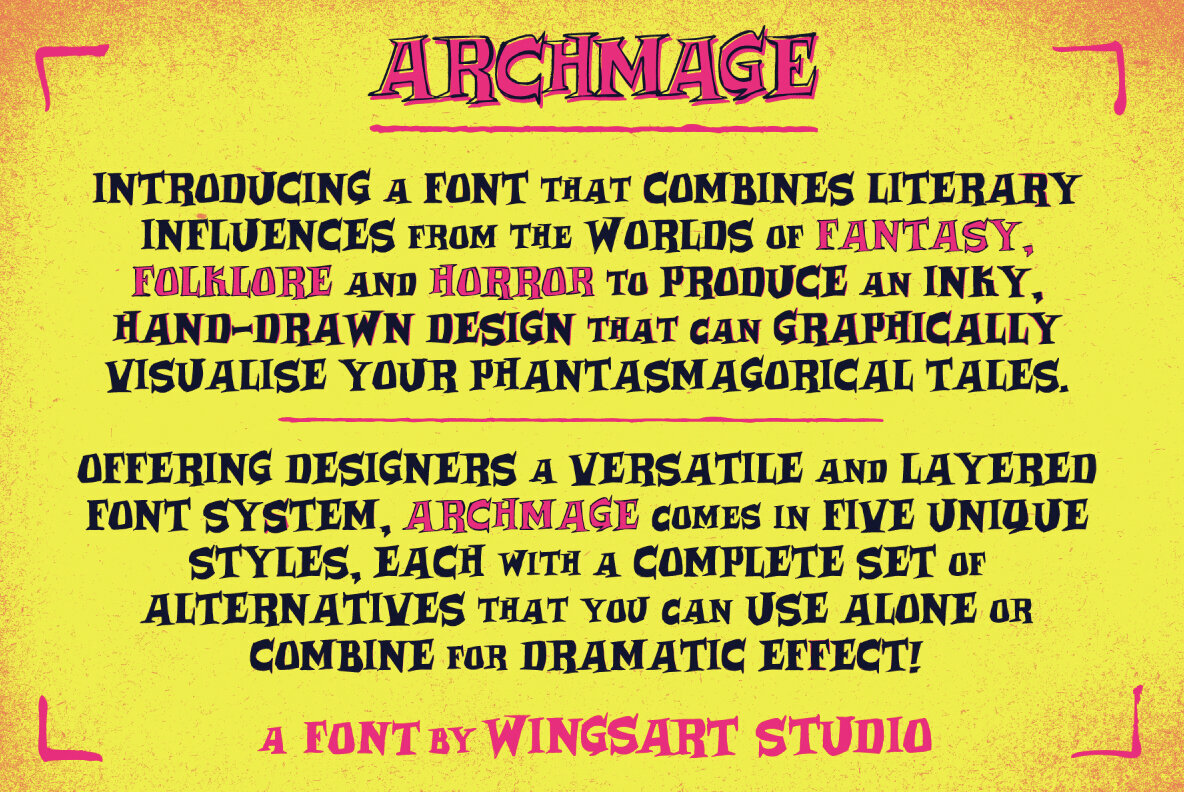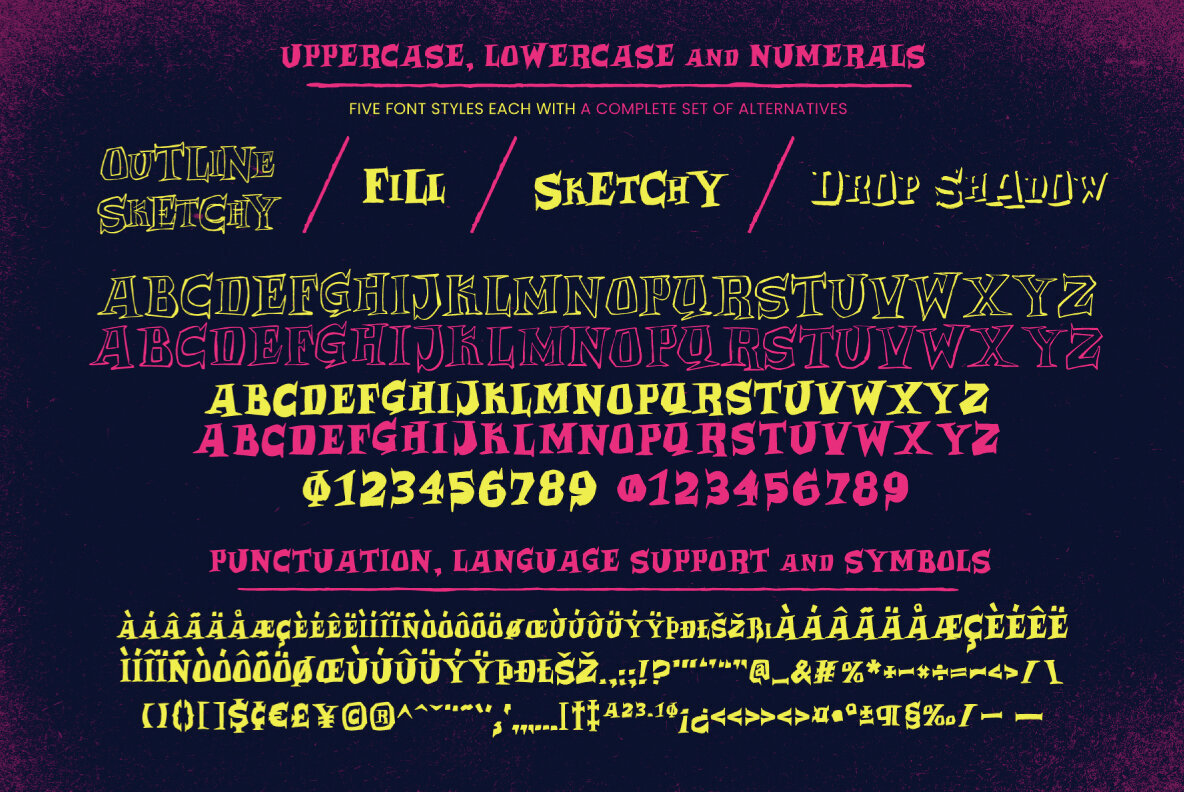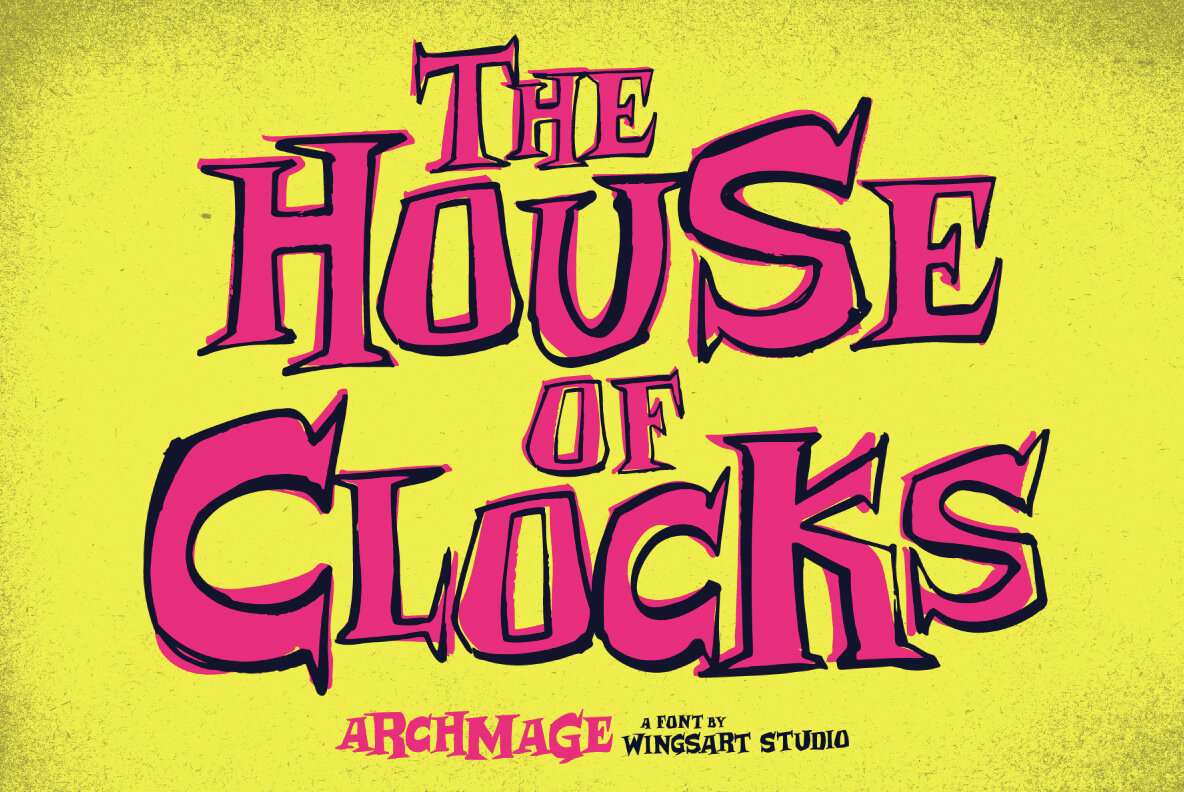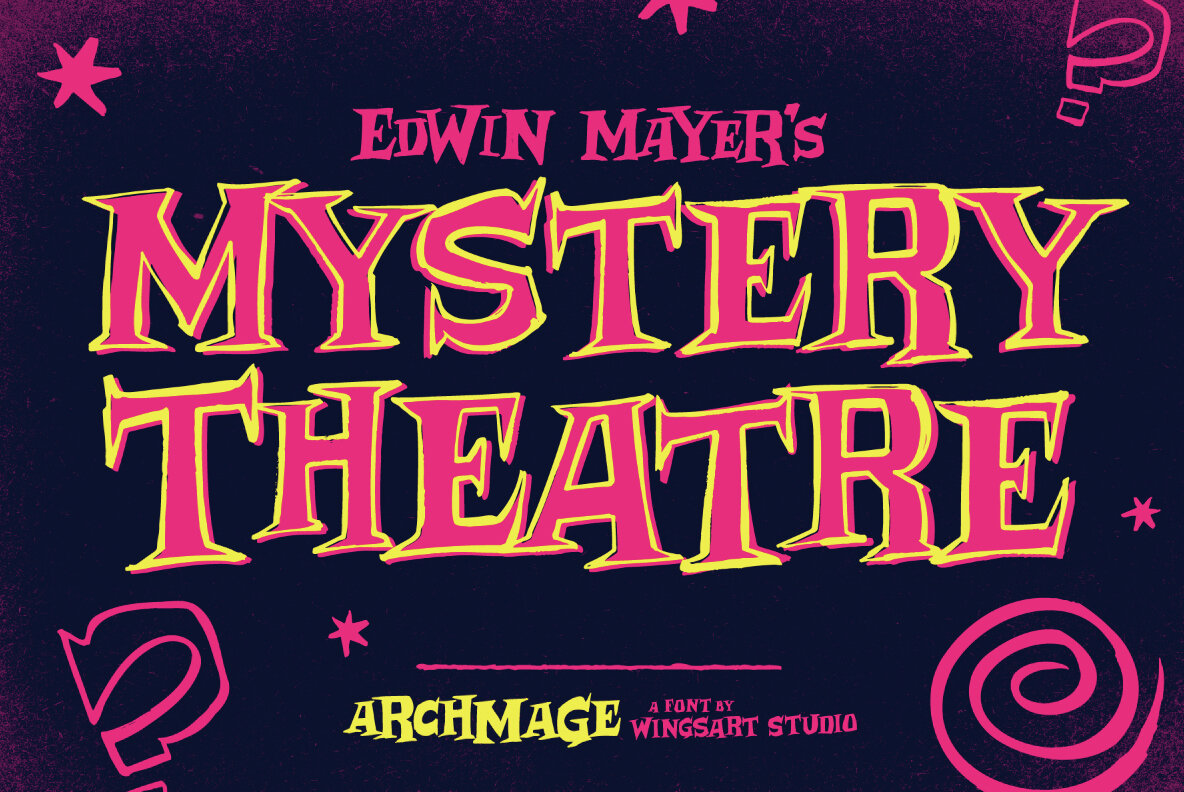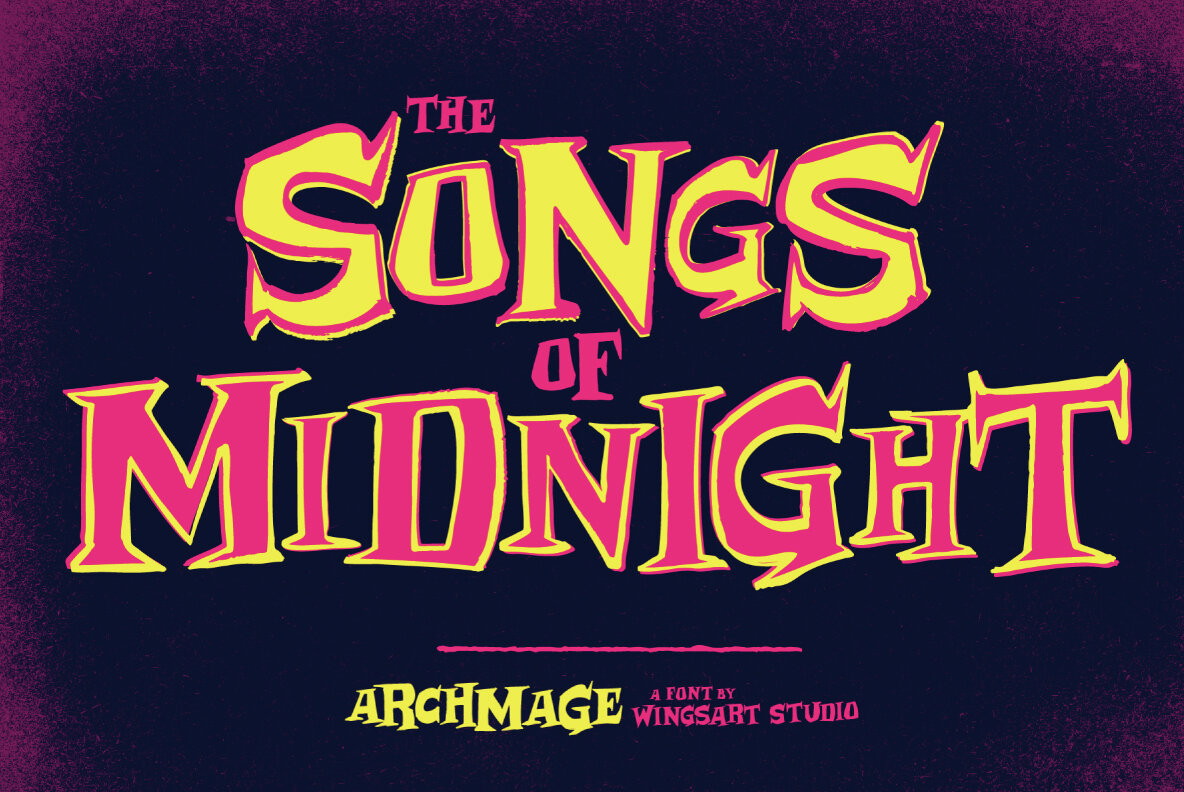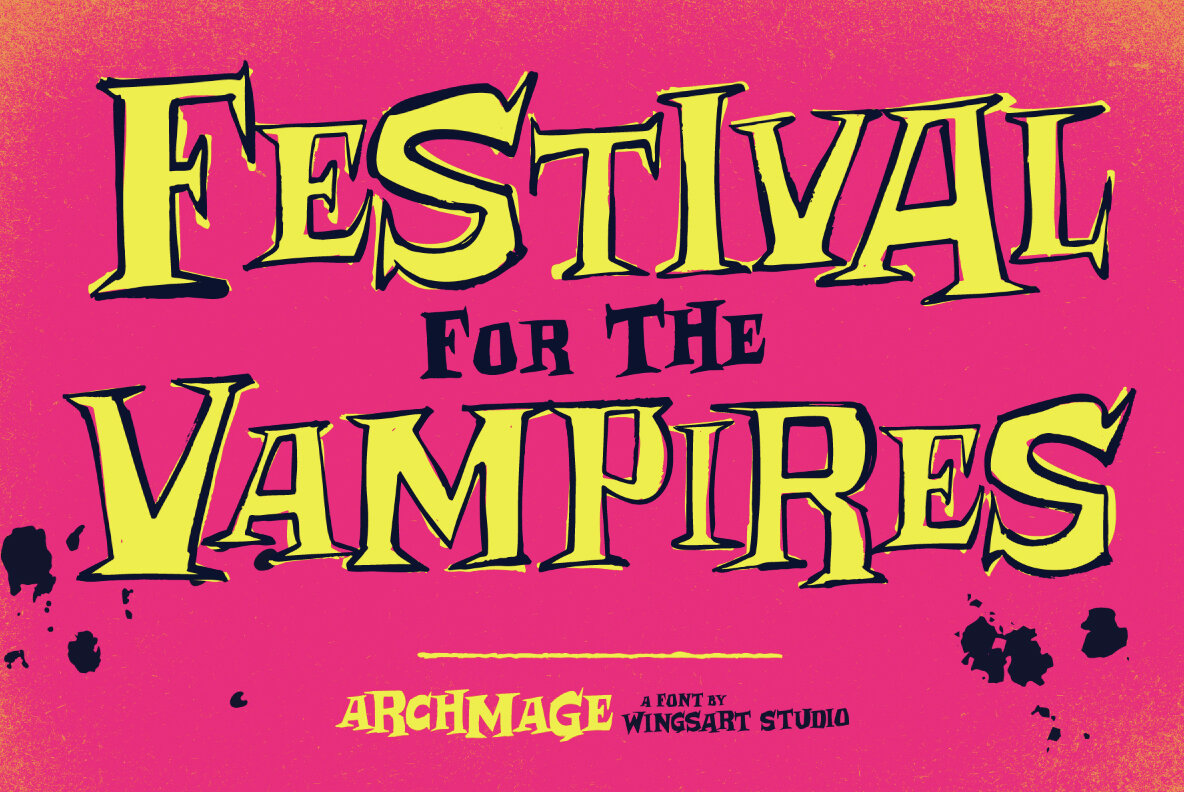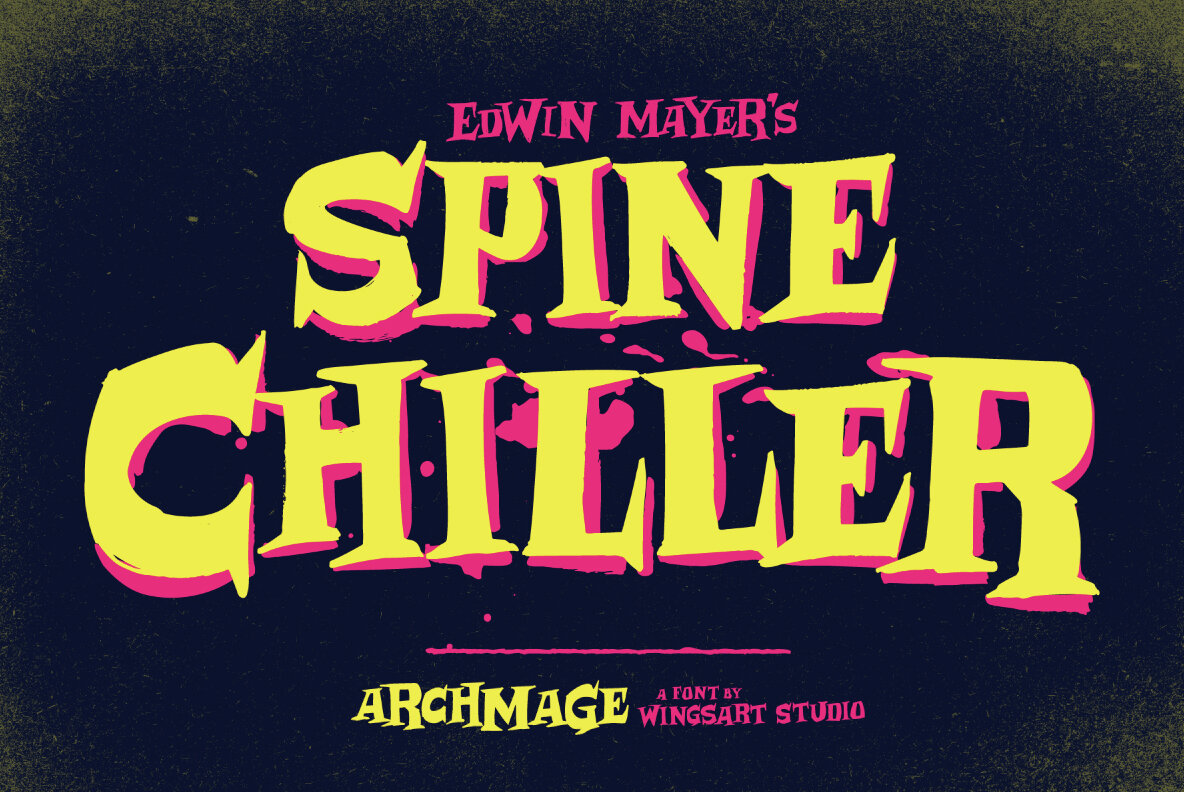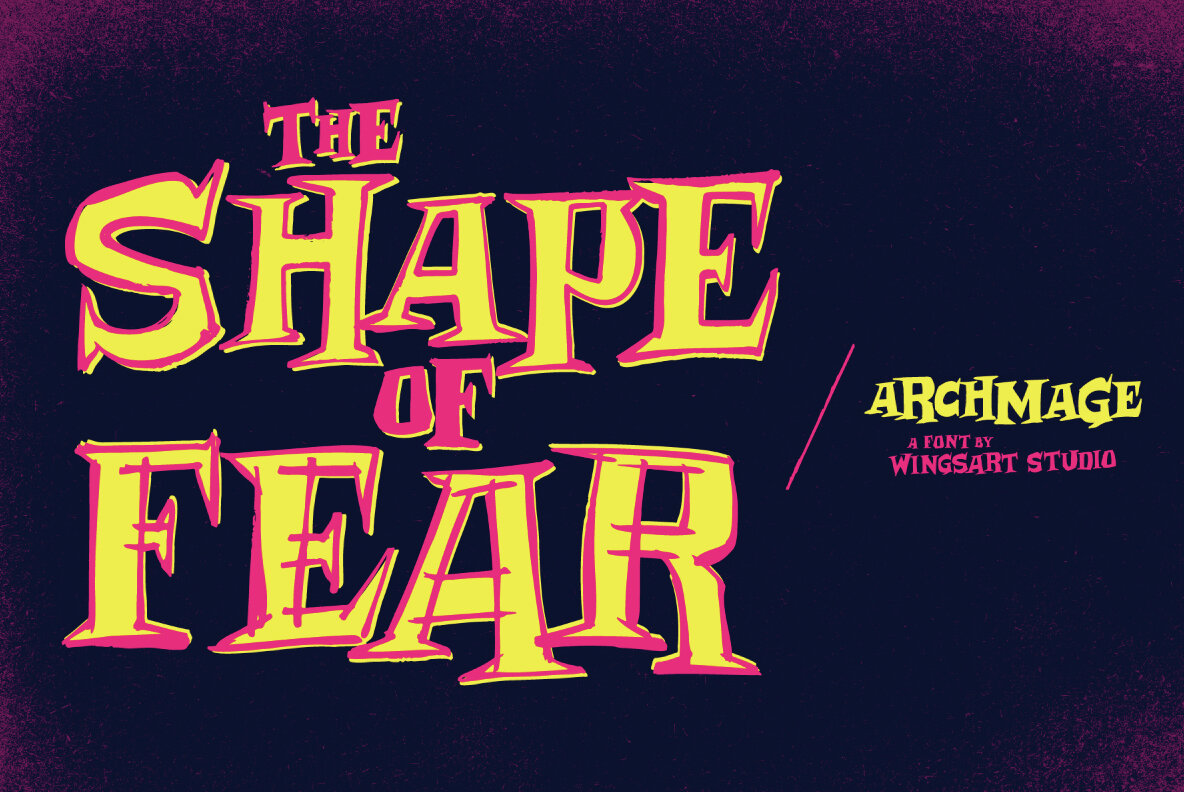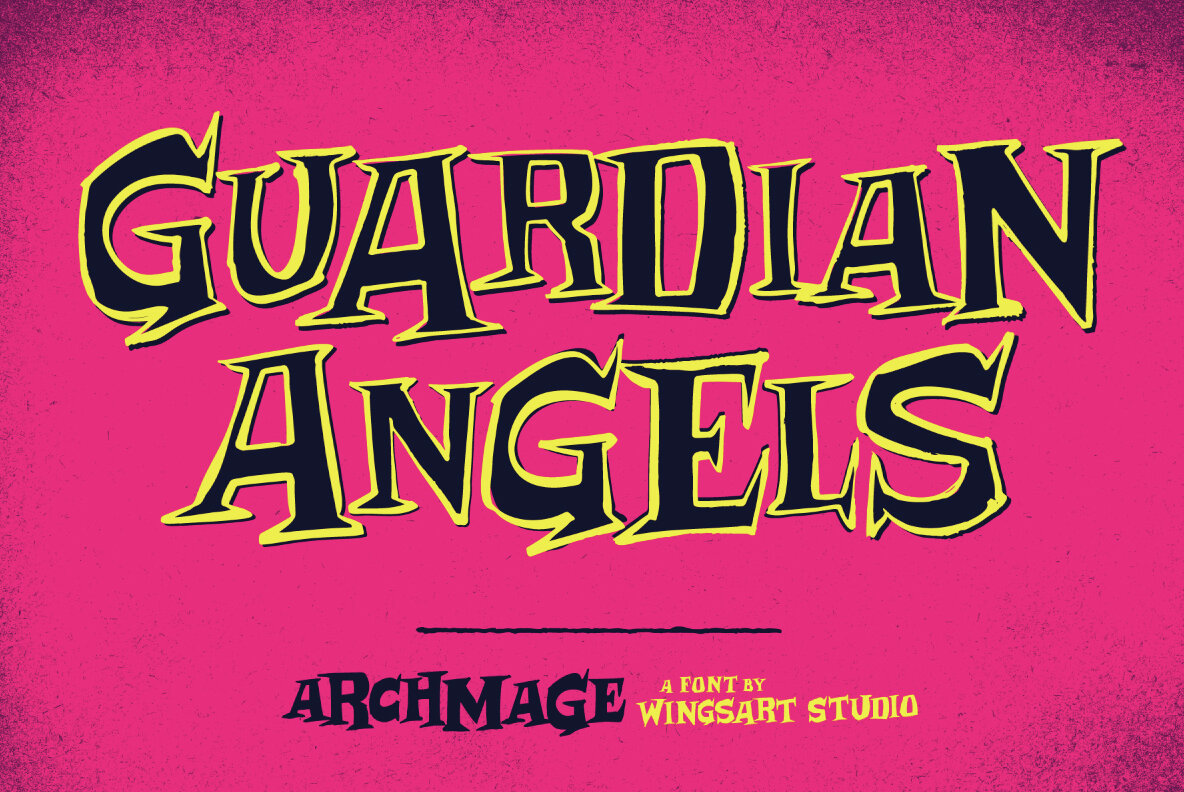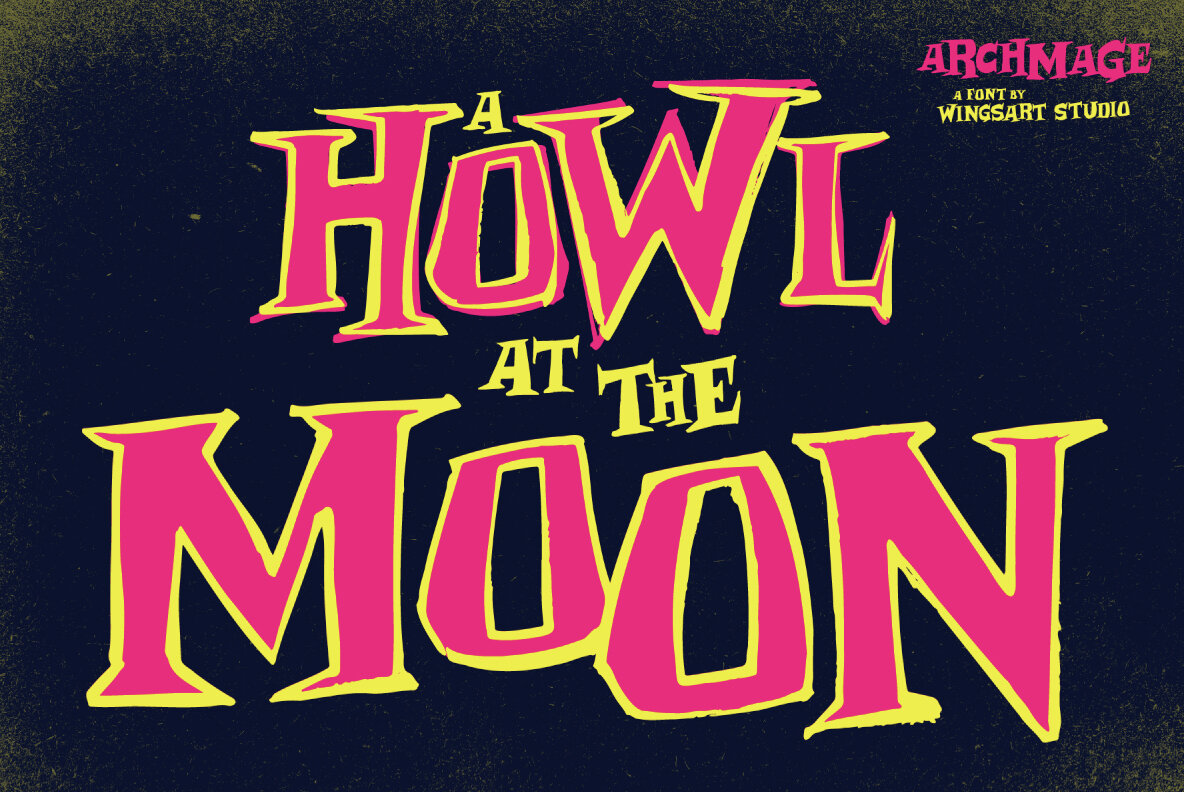
Archmage Font
A hand-drawn font with literary influences from the worlds of fantasy, folklore and horror. Introducing Archmage, a font that combines literary influences from the worlds of fantasy, folklore and horror to produce an inky, hand-drawn design that can graphically visualise your phantasmagorical tales. Offering designers a versatile and layered font system, Archmage comes in five unique styles, each with a complete set of alternatives that you can use alone or combine for dramatic effect! Archmage is an all-caps design that offers a complete and unique set of uppercase and lowercase characters, along with numerals, punctuation, symbols and language support; plus each of the five styles comes with a set of alternatives so you can avoid ever having to repeat characters. You’ll also find included a collection of decorative underlines and symbols for added detail. Designed to appear loose and truly hand-made, Archmage is the perfect companion to your next book cover illustration, low-fi film title, spooky podcast or magazine article. It offers a friendly charm with a sharp gothic edge equally at home on a children’s book cover or Halloween movie poster. My aim with Archmage was to create the visual equivalent of fun and spooky stories, ready for raise the hairs on those long, cold winter nights. Contents: The Complete Archmage Font Family
Based near Bristol, UK, Christopher King is the designer behind Wingsart Studio, a creative practice specializing in hand-drawn lettering and bespoke typography for film and television. Acting as both a working portfolio and an independent font foundry, Wingsart Studio showcases King’s deep appreciation for mi...